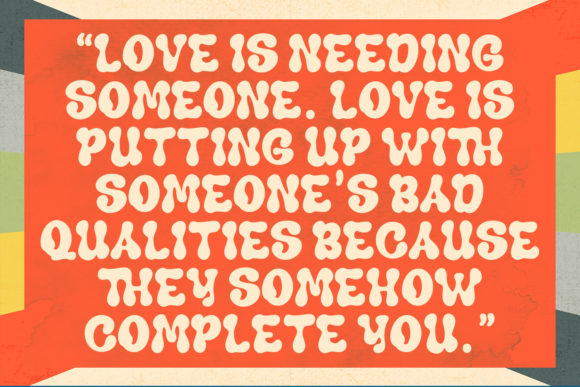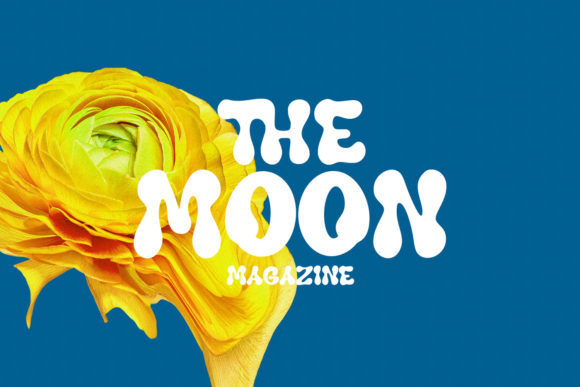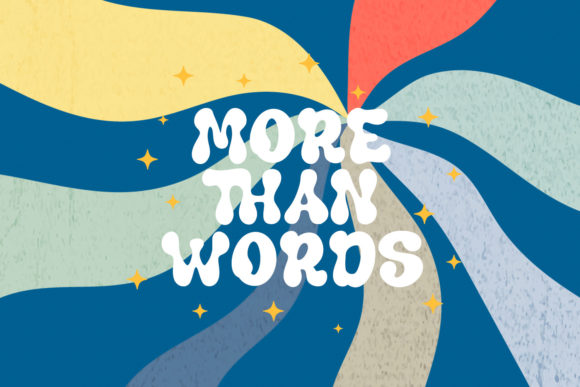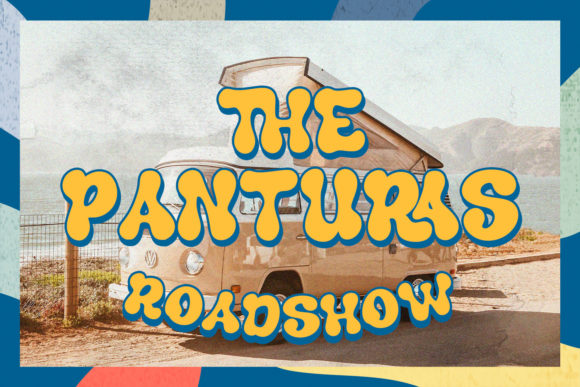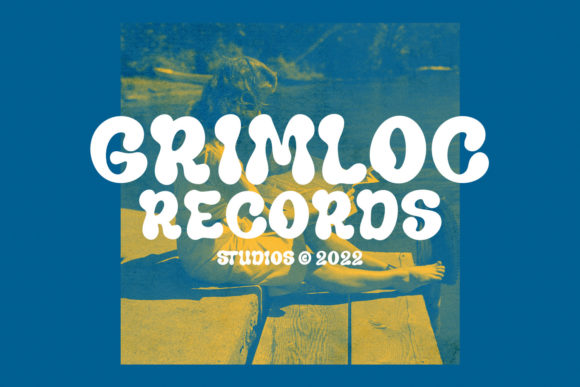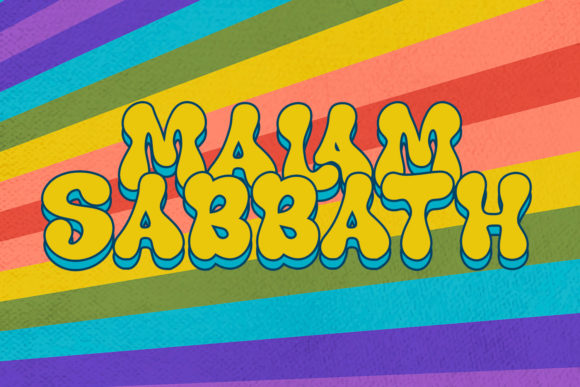
Introduction to Keithlar Font
Have you ever stared at a blank canvas, eager to bring a creative project to life, only to be stuck on the perfect font to set the tone? For designers, finding that elusive font can be a game-changer. It’s the moment when everything clicks, and your vision starts to take shape.
Enter the Keithlar Font, a vibrant display font that’s about to revolutionize your design workflow. With its bold contrast stroke and playful ligatures, this font is the perfect companion for designers seeking to elevate their creative ideas to new heights.
Whether you’re working on a high-quality design resource or a free download, the Keithlar Font is an invaluable addition to your toolkit. Its transparent background and bold aesthetic make it a standout choice for designers looking to add a touch of whimsy to their projects.
- High-quality design resource ideal for creative projects, including logos, graphics, and typography.
- Transparent background allows for seamless integration with various design elements and backgrounds.
- Unique characteristics include a modern, elegant design with a subtle flair, making it perfect for a wide range of creative projects.
- Keithlar Font is a versatile design resource that can be used in various contexts, from branding and marketing materials to digital products and publications.
Honest Review: Keithlar Font
I recently had the chance to work with the Keithlar Font, and I must say it’s been a solid addition to my design resources. The font offers a high quality and versatile set of characters, perfect for a wide range of creative projects.
What works well: ✨ The font’s transparent background makes it easy to work with, allowing for seamless layering and composition. The subtle nuances in letterform design also give it a unique and eye-catching aesthetic.
- High quality: The font’s design is crisp and clear, even at smaller font sizes.
- Transparency: The transparent background makes it easy to work with and allows for creative layering.
Limitations: ⚠️ While the font is generally well-designed, some characters may appear slightly inconsistent or awkward in certain contexts. Additionally, the font’s versatility may be limited by its relatively simple design.
Overall impression: The Keithlar Font is a solid, high-quality design resource that’s perfect for a wide range of creative projects. While it may have some limitations, its free download and versatility make it a great option for designers of all levels.
The Keithlar Font is a high-quality design resource that can add a unique touch to your creative projects. This font features a transparent background, making it easy to use in a variety of design applications.
For optimal results, use the Keithlar Font in conjunction with other design elements that complement its unique style. Experiment with different font sizes and colors to find the perfect combination for your project.
The Keithlar Font is ideal for use in creative projects such as logos, posters, and infographics. Its unique style and transparent background make it perfect for adding a touch of elegance and sophistication to your designs.